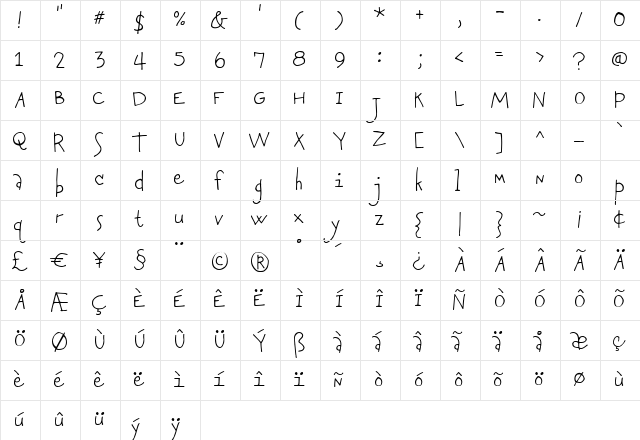
GoodKitty Regular
| Foundry | Fonthead Design Inc. |
| Designer | Ethan Dunham |
Design Context for GoodKitty Typeface
GoodKitty is a composed and adaptable typeface that performs quietly and consistently across a wide range of design contexts.